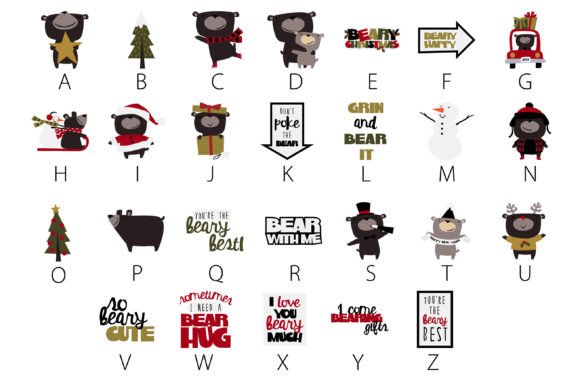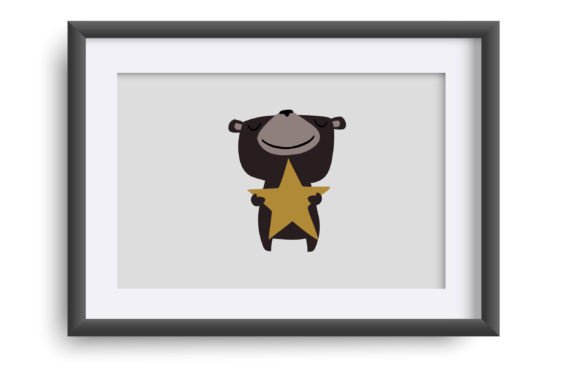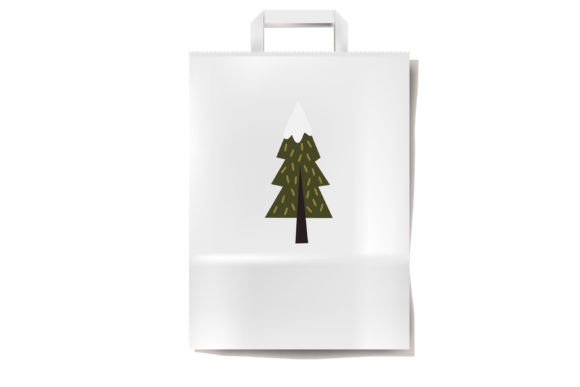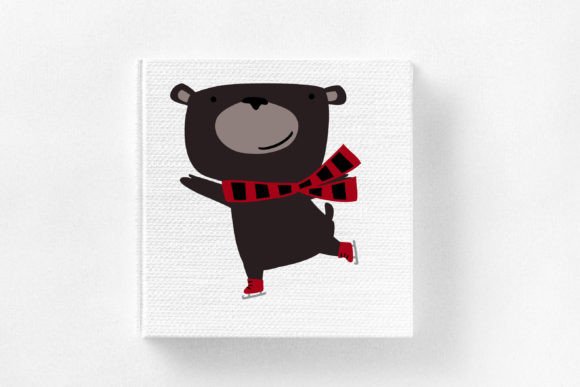
Introducing Beary Christmas Font: A Whimsical Dingbat Font for the Holiday Season
Are you looking for a fun and festive font to add some holiday cheer to your designs? Look no further than the Beary Christmas Font, a whimsical dingbat font featuring Christmas bears and Christmas elements. This charming font is perfect for designers and crafters who want to create unique and eye-catching projects for vinyl and cutting machines.
What is Beary Christmas Font?
Beary Christmas Font is an OpenType full-color (SVG) font that features a delightful collection of Christmas bears and holiday elements, such as trees, snowflakes, and gifts. This dingbat font is designed to add a touch of whimsy and fun to your designs, making it perfect for holiday-themed projects, such as Christmas cards, decorations, and gifts.
Key Features of Beary Christmas Font
- Whimsical designs: The font features a range of adorable Christmas bears and holiday elements, including trees, snowflakes, and gifts.
- Perfect for vinyl and cutting machines: This font is ideal for designers and crafters who work with vinyl and cutting machines, such as Cricut or Silhouette.
- Experiment with different designs: The Beary Christmas Font features a range of designs, so don’t be afraid to experiment and combine different elements to create unique projects.
Whether you’re a seasoned designer or a crafter looking for a fun and creative project, Beary Christmas Font is a great addition to your toolkit. Here are a few tips for getting the most out of this font:
- Use it for holiday-themed projects: Beary Christmas Font is perfect for holiday-themed projects, such as Christmas cards, decorations, and gifts.
- Combine with other fonts: Try combining Beary Christmas Font with other fonts to create unique and eye-catching designs.
- Experiment with different colors: While the font features a range of colors, you can also experiment with different colors and textures to create unique effects.
Beary Christmas Font is a fun and festive dingbat font that’s perfect for designers and crafters looking to add some holiday cheer to their projects. With its whimsical designs and easy-to-use format, this font is sure to become a favorite in your toolkit. So why wait? Download Beary Christmas Font today and start creating your own unique holiday-themed projects!